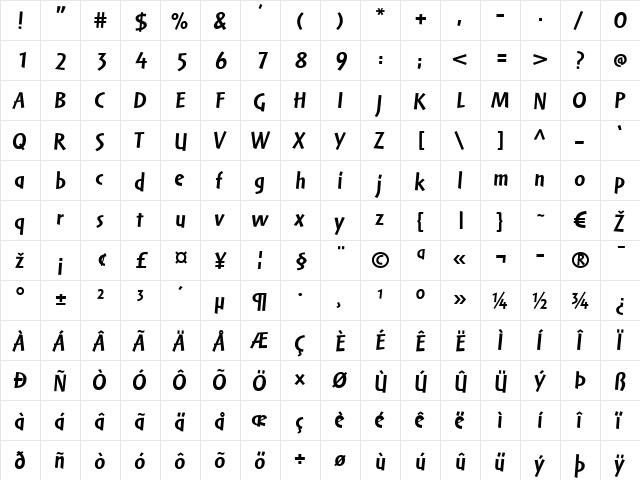
Markin LT Regular Bold Italic Font Preview
Markin LT Regular Bold Italic
Design Context for Markin LT Regular Typeface
Markin LT Regular offers clean, dependable letterforms without strong stylistic allegiance, making it a practical choice for designers who need flexibility. The slanted form adds forward momentum and visual energy. Its bold stroke weight gives it real presence on the page.
Pro Tip: Use Markin LT Regular for emphasis, pull quotes, and subheadings where its slanted energy can add rhythm to the layout.